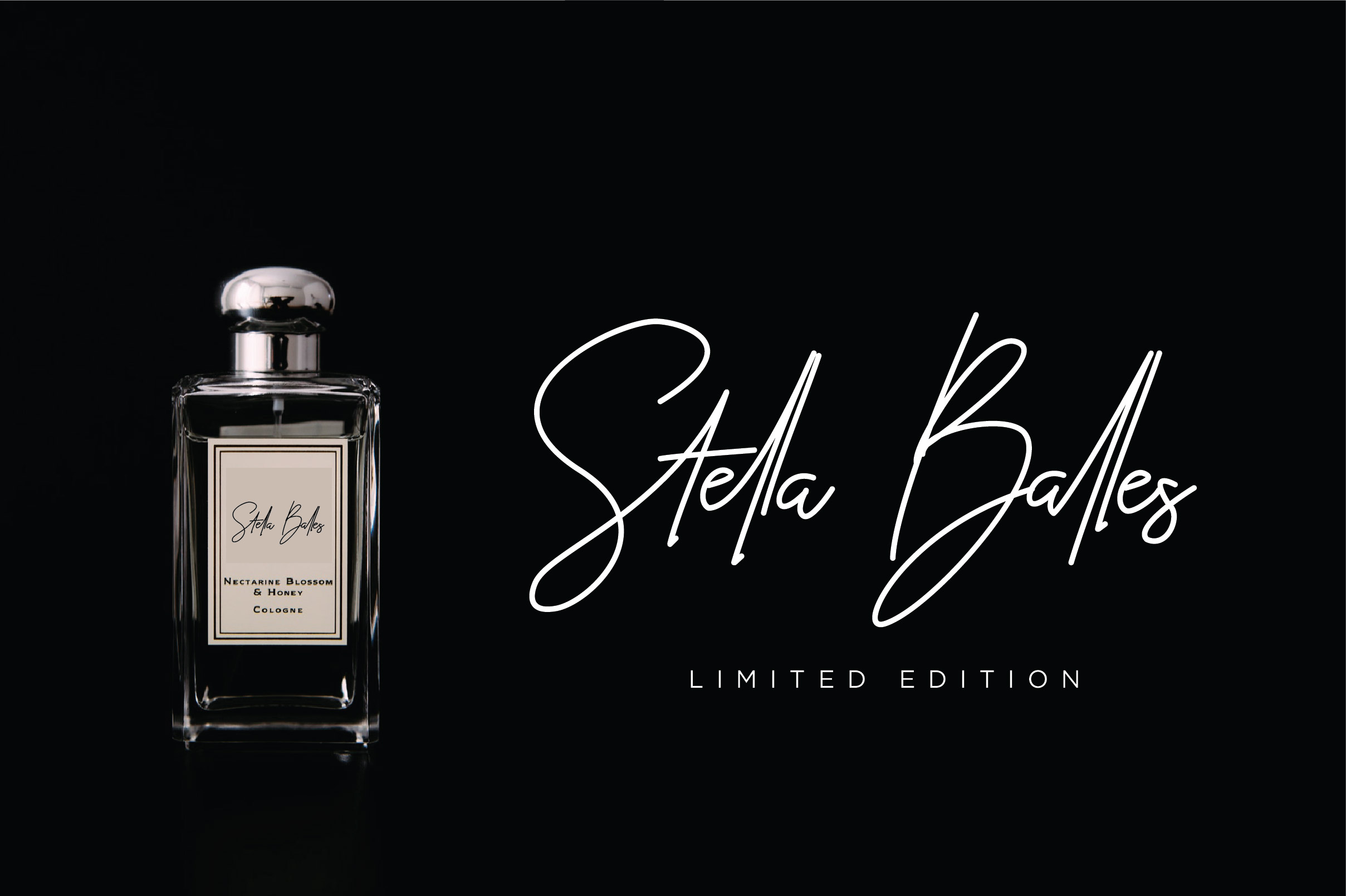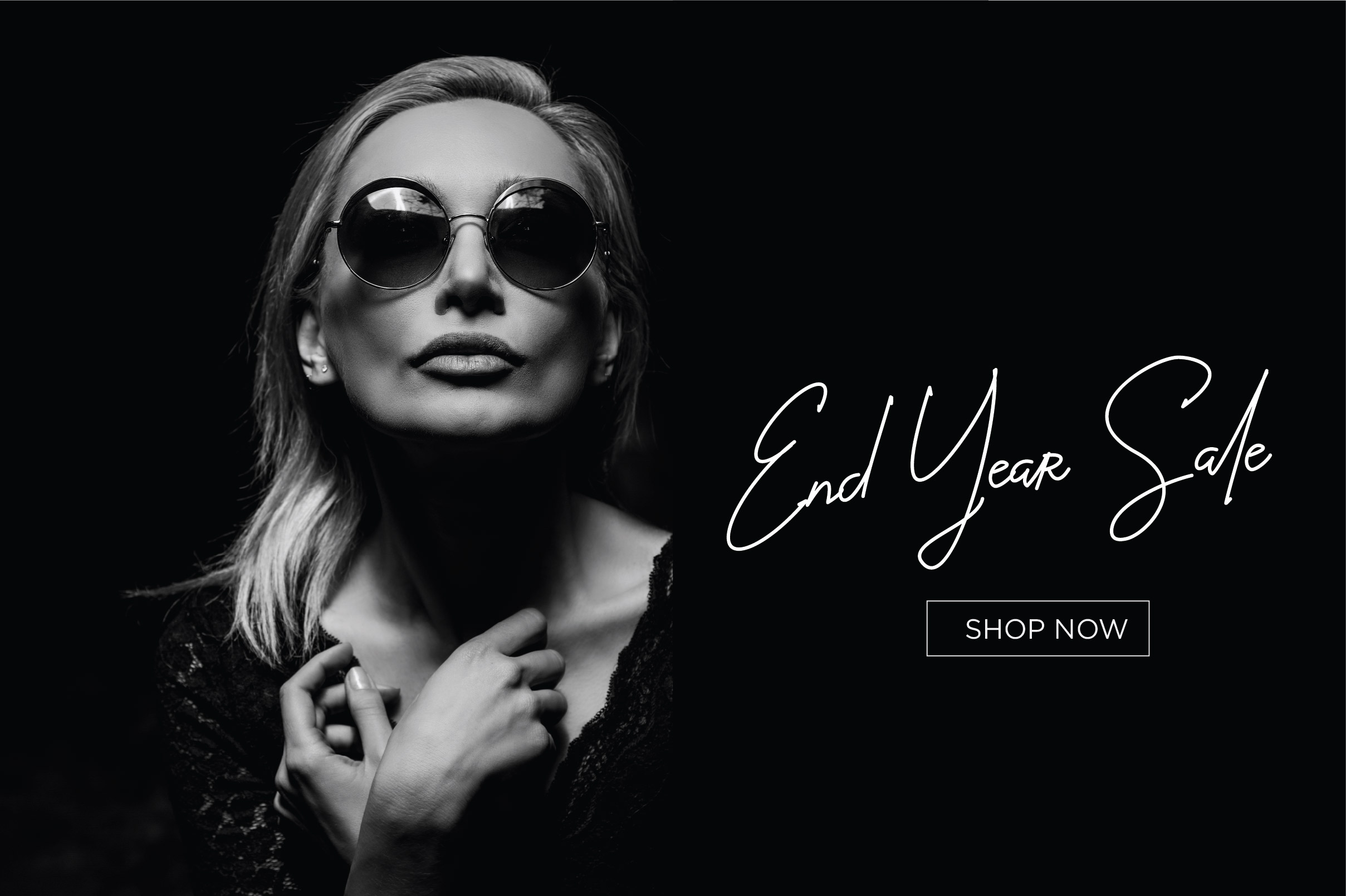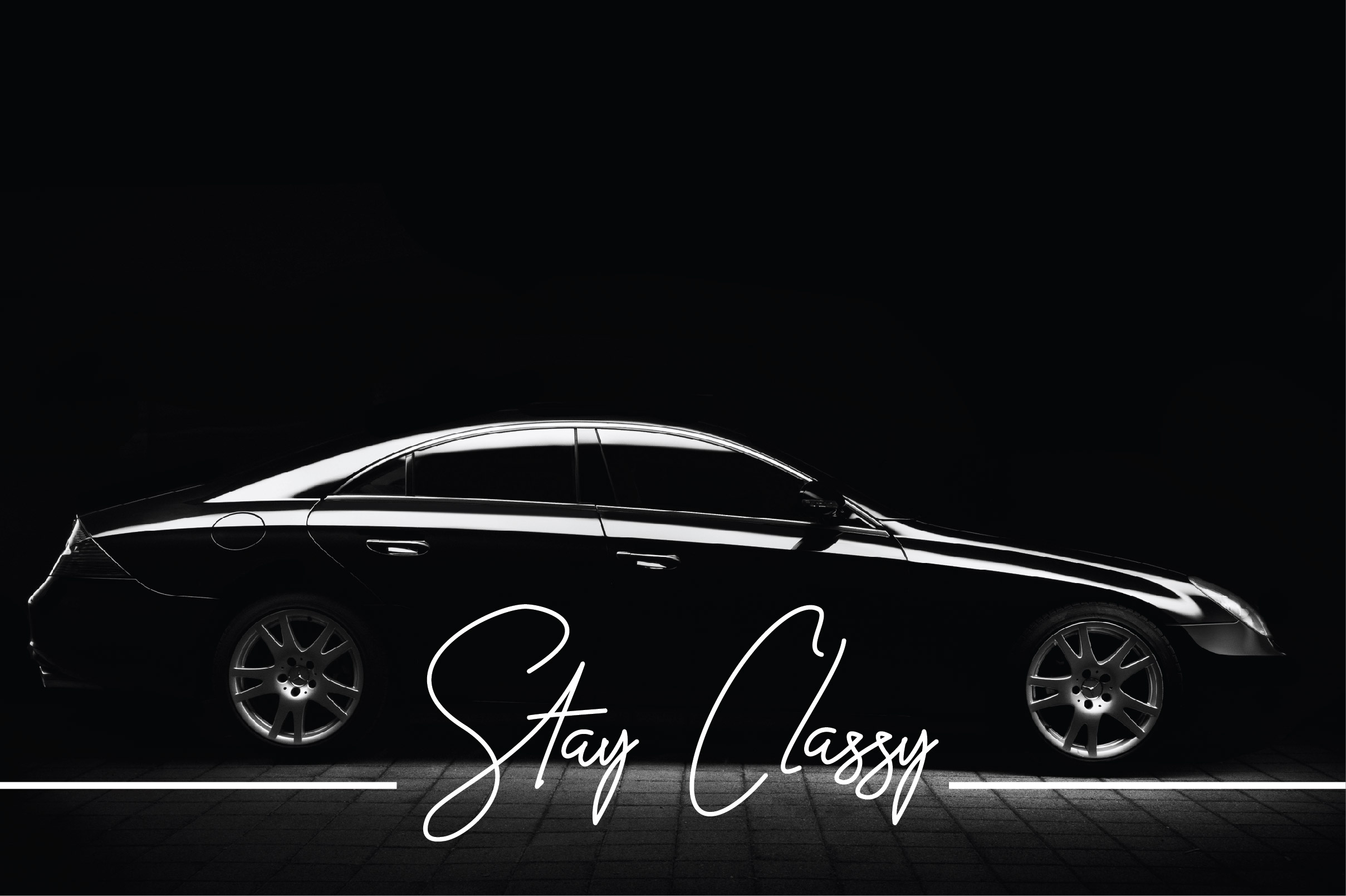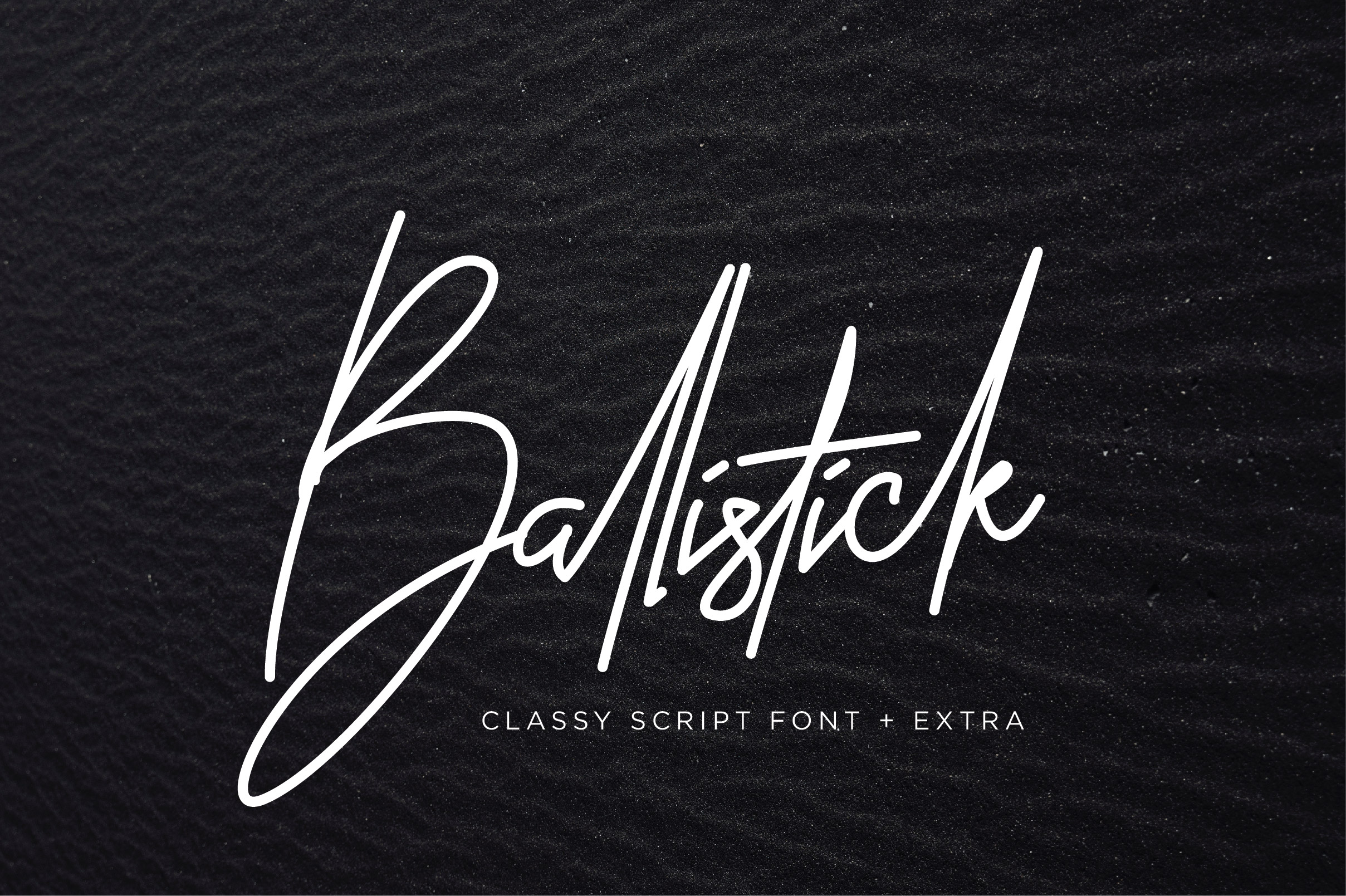
Ballistick Signature Font
For those of you who are needing a touch of elegance and modernity for your designs, this font was created for you! It is a multi purpose signature font. Introducing Ballistick Font. Ballistick – Contemporary Signature Script font Beautiful & Classy typographic harmony for design projects. It is perfect for all projects like ; logotype sticker, apparel, bag, magazine, website headlines, packaging, branding, quotes, business cards, and more.